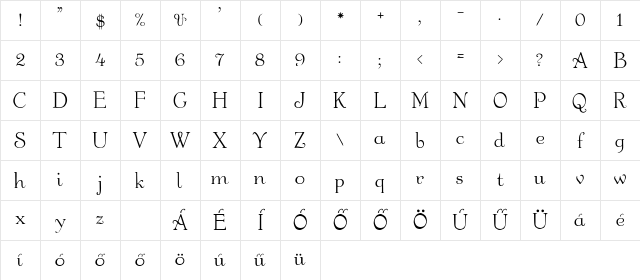
Complete GartonRegular-HU Normal glyph index. Displaying only characters natively supported by GartonRegular-HU Normal font.
GartonRegular-HU is a composed and adaptable typeface that performs quietly and consistently across a wide range of design contexts.